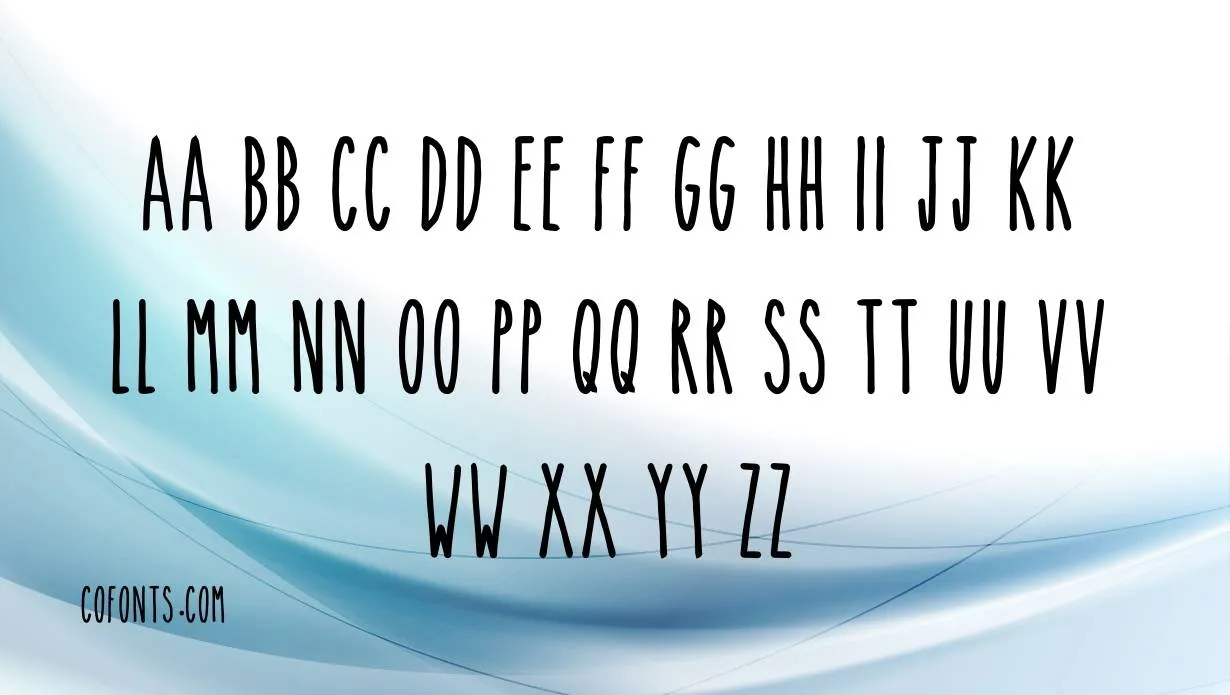
The Skinny Font belongs to the handwritten family and was designed by Jusebox. The style of this is perfect for those who appreciate natural hand-writing and a touch of personality in their texts.
Font Information
Name | The Skinny Font |
Style | Handwritten |
Designer | Jusebox |
The Skinny Font Family (Includes 1 Typeface)
- The Skinny Regular